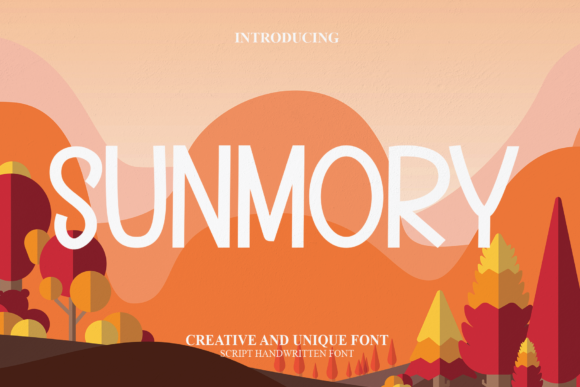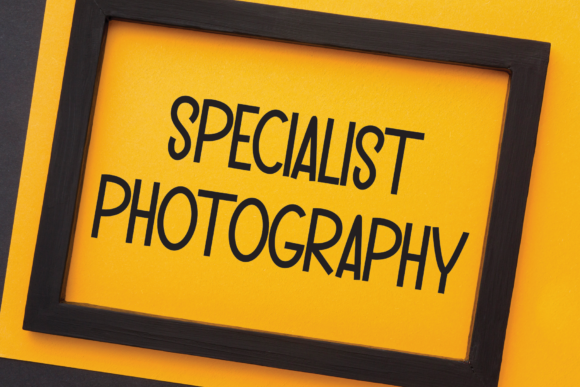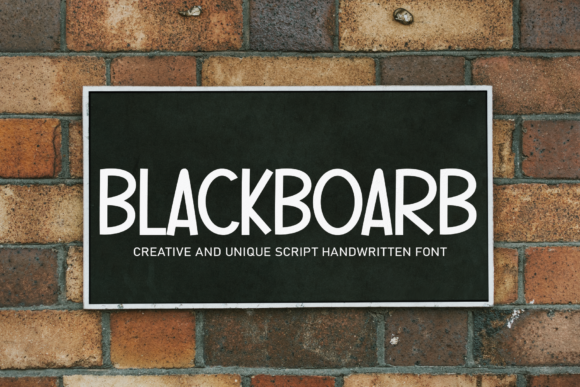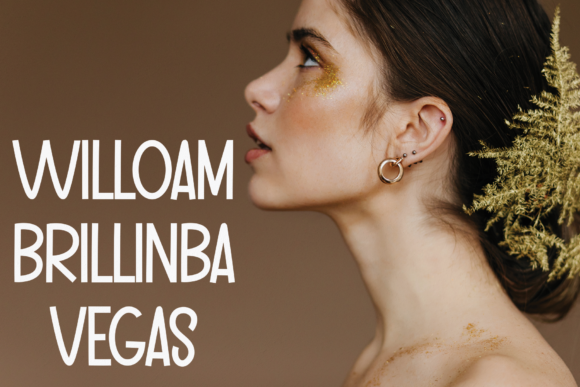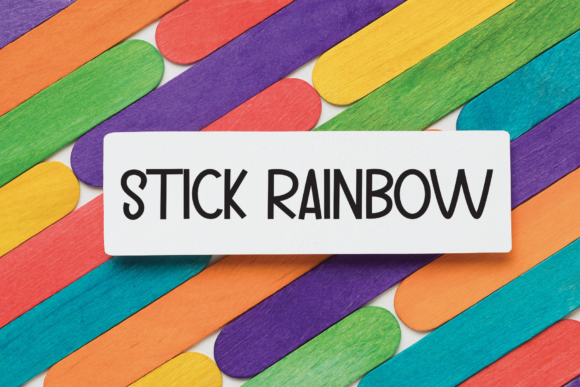
Sunmory Font
About Sunmory Font
Sunmory is a cool, casual and friendly display font. No matter the topic, this font will be an incredible asset to your fonts’ library, as it has the potential to elevate any creation.